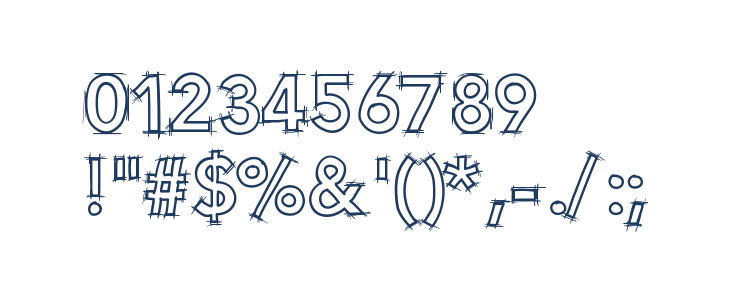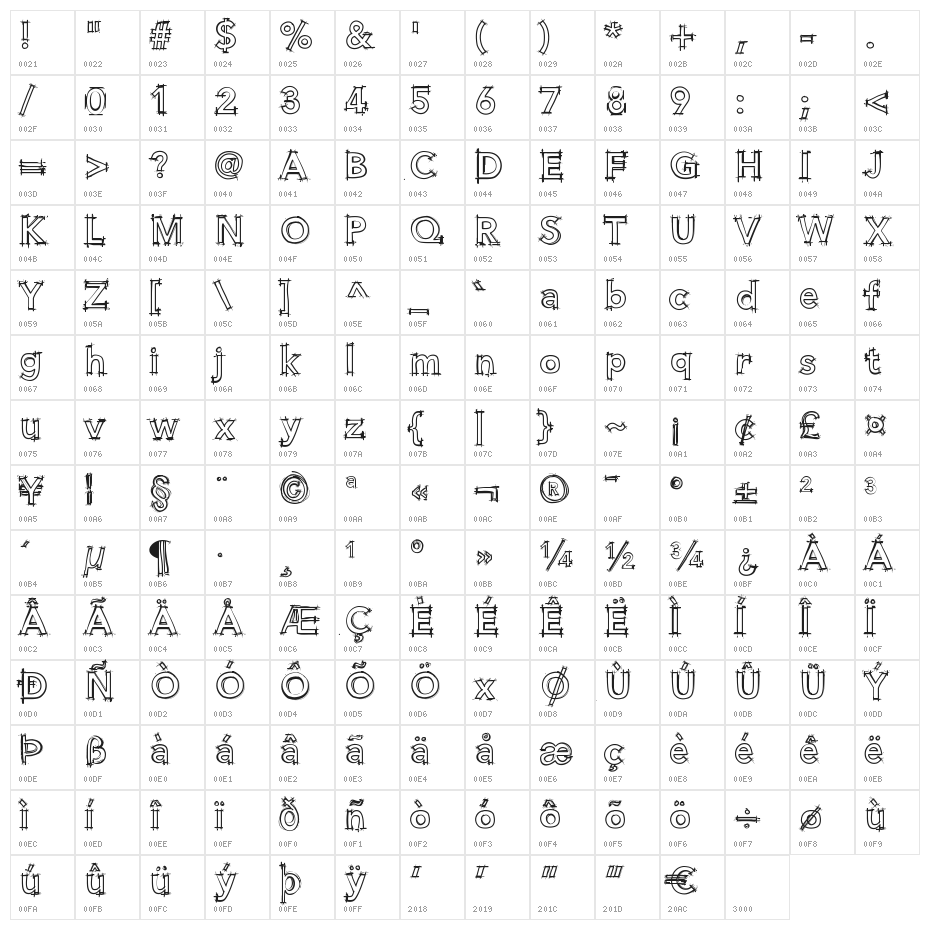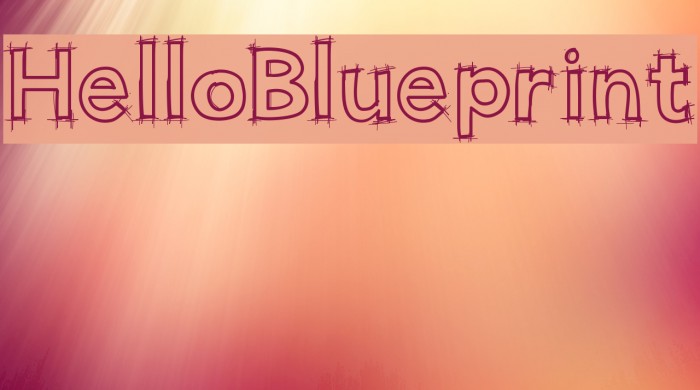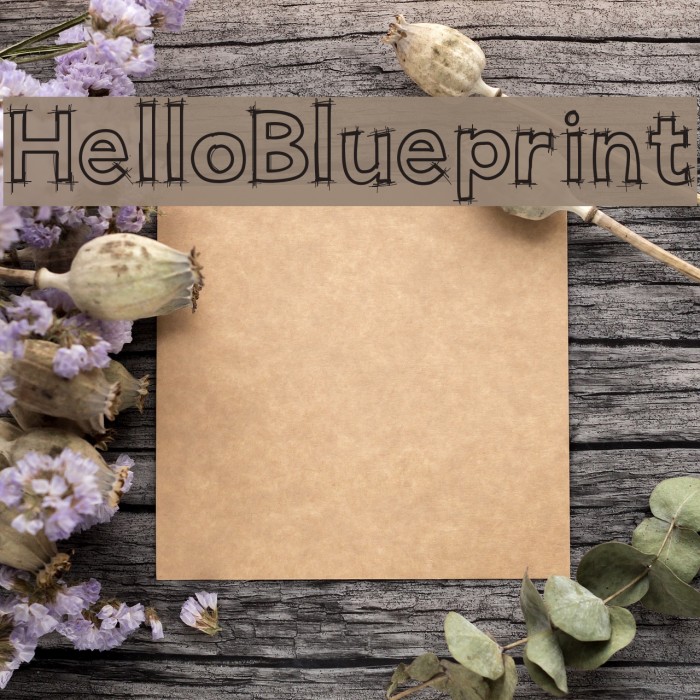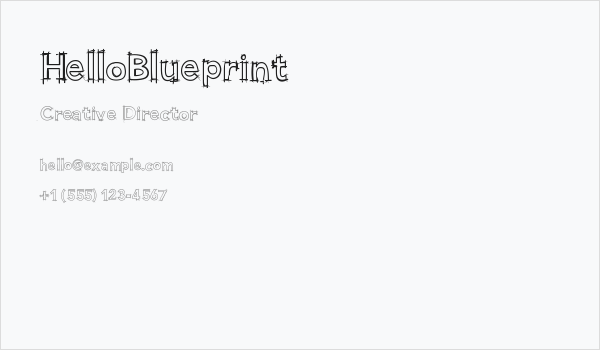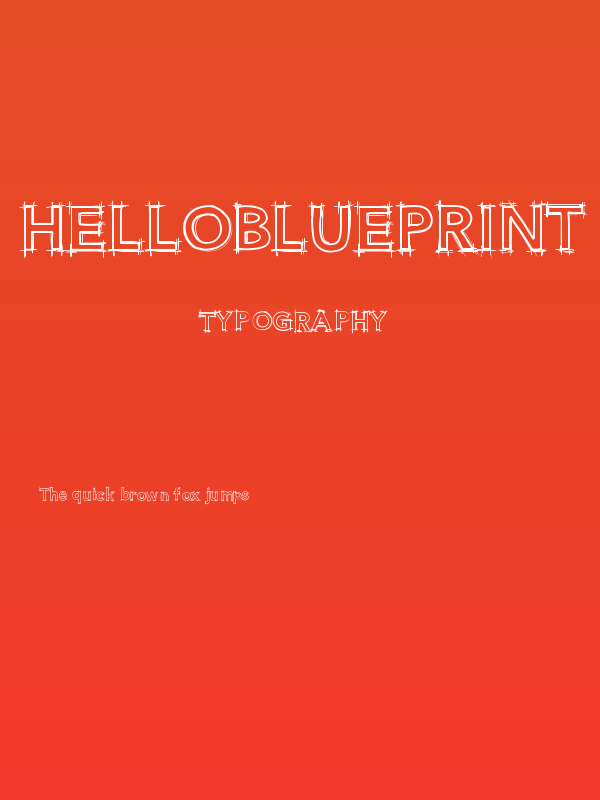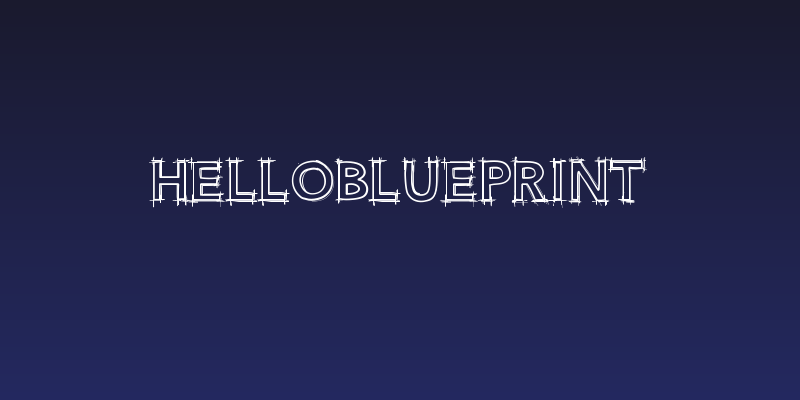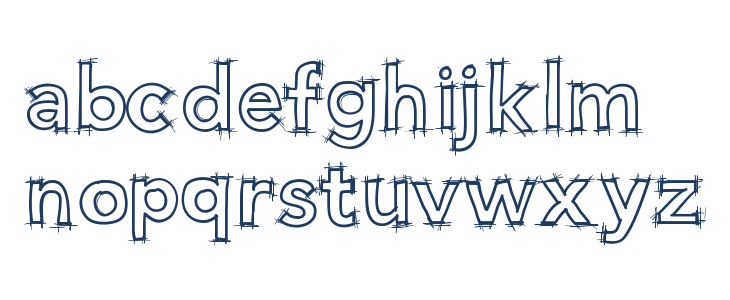
HelloBlueprint Font
HelloBlueprint Description
This font features a unique and playful design with a blueprint-inspired aesthetic. Each character is outlined with a bold, black line, and adorned with small, sketch-like details that resemble construction markings or technical drawings. The uppercase and lowercase letters maintain a consistent style, with rounded edges and a slightly condensed form. The numbers and special characters follow the same design principles, ensuring a cohesive look across all glyphs. This font's distinctive style makes it stand out, offering a creative and artistic flair that is both modern and innovative.
| Proposed Projects | Ideal for creative projects such as posters, branding, architectural presentations, and educational materials. |